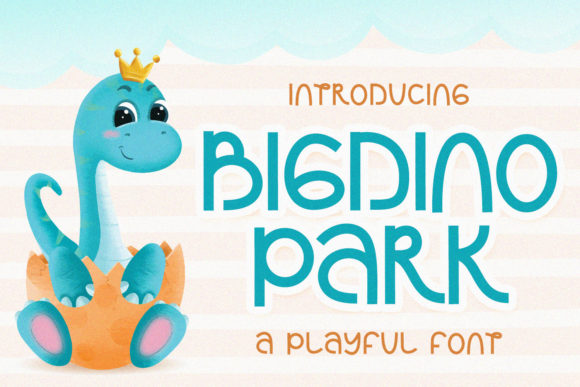
Embrace the Whimsy and Playfulness of Bigdino Park Font: A Typographic Masterpiece Awaiting Your Creative Touch
Journey into the realm of typography where playful elegance meets effortless charm. Bigdino Park Font, a brainchild of alpapranastudio, is not just a font; it's an invitation to unleash your creativity and embark on a journey of artistic exploration. With its delightful combination of minimalist aesthetics and a touch of whimsical flair, this display font is a true masterpiece that will transform your designs into captivating visual feasts.
Step into a world where letters dance with joy and individuality. Bigdino Park's distinctive and casual characters exude a friendly charm that instantly captures attention. Whether you're crafting logos, posters, or branding materials, this font will add a splash of personality that sets your designs apart. Its playful nature makes it a perfect fit for children's products, invitations, and playful designs.
Immerse yourself in the incredible versatility of Bigdino Park. With its diverse range of applications, this font effortlessly adapts to your creative vision. From elegant wedding invitations to eye-catching social media posts, Bigdino Park seamlessly blends into any design aesthetic, adding a touch of delightful charm that elevates your creations.
Indulge in the sheer joy of using Bigdino Park. Its incredibly versatile style makes it a breeze to use, even for beginners. Simply let your imagination soar, and this font will effortlessly transform your ideas into stunning visual masterpieces. Experience the pure delight of creating designs that resonate with warmth, playfulness, and an undeniable sense of whimsy.